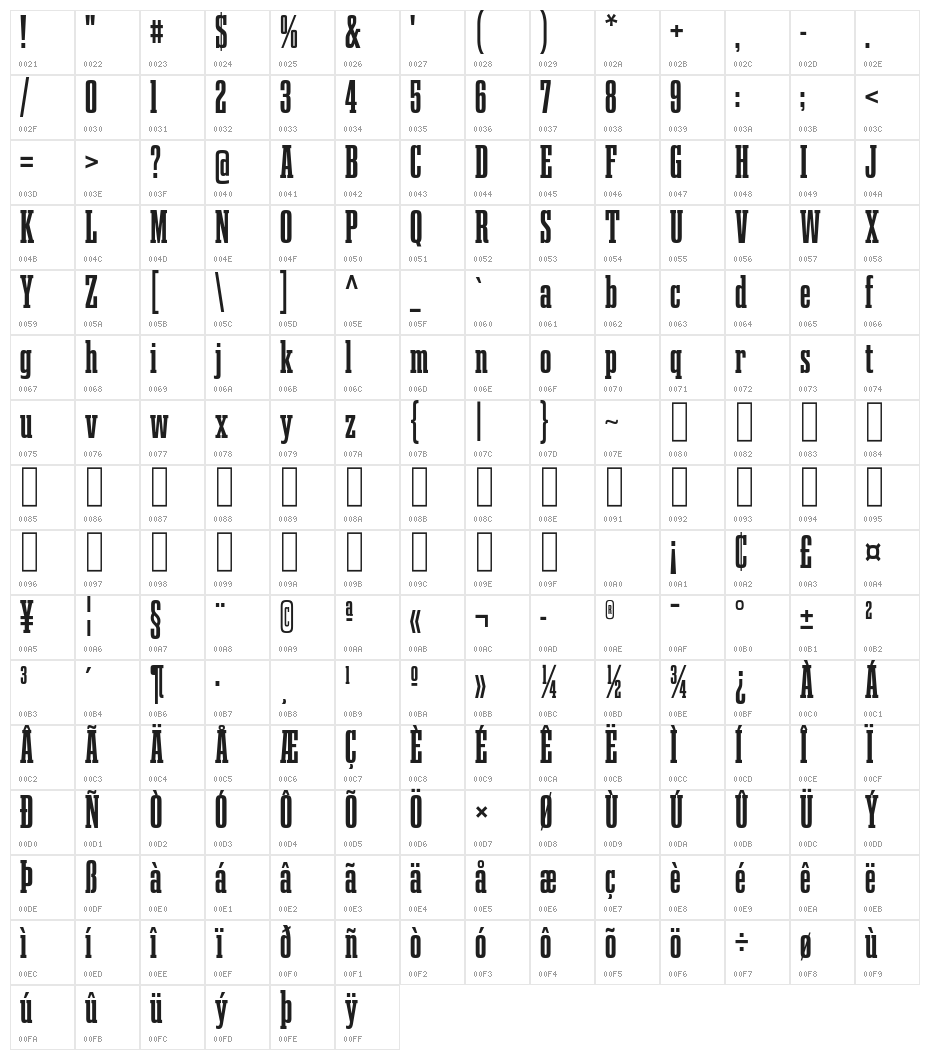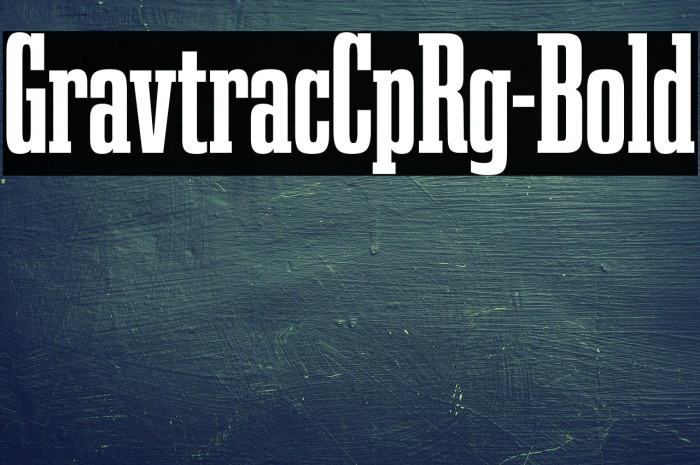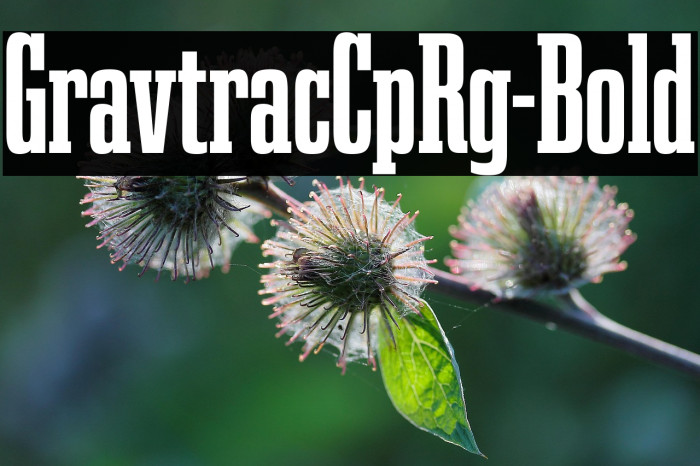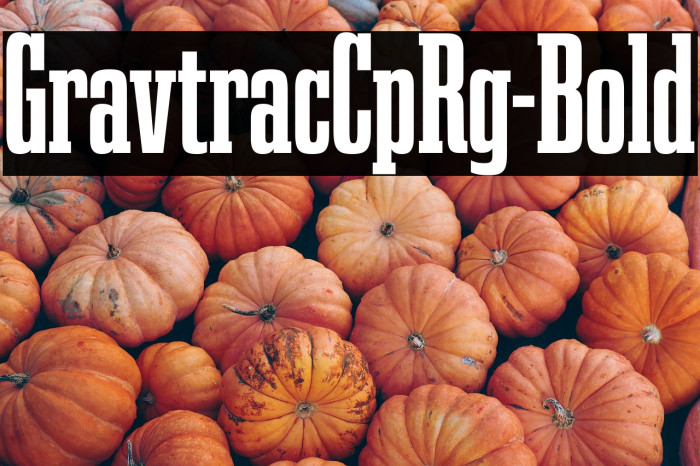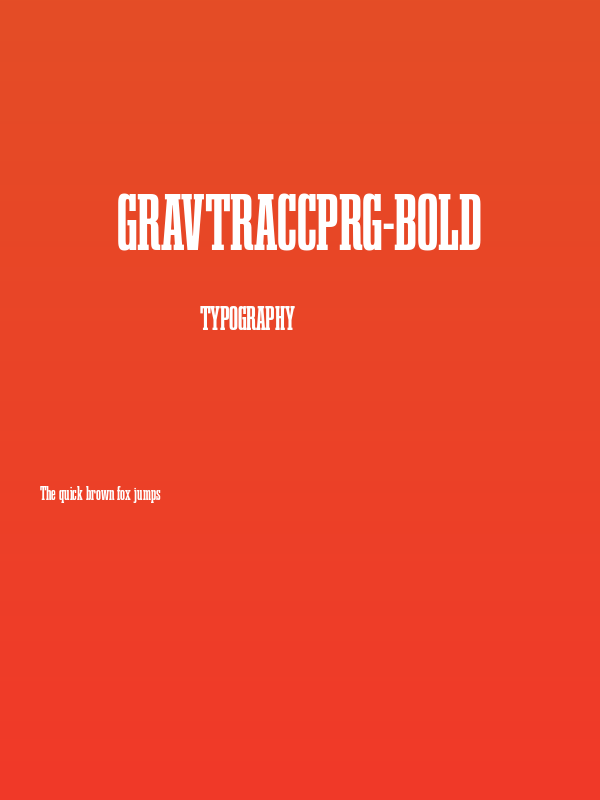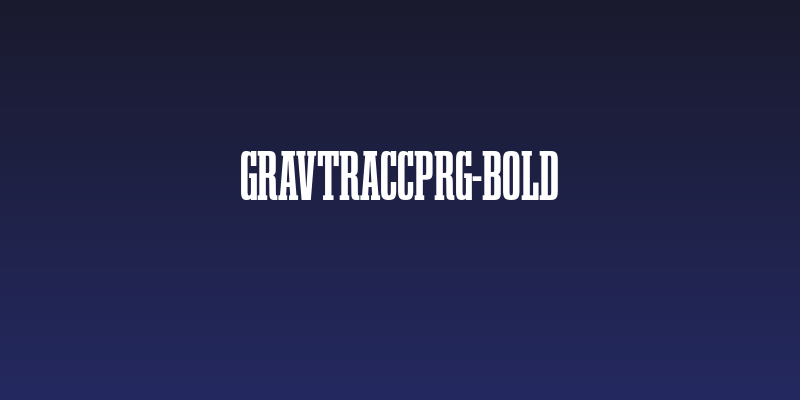
GravtracCpRg-Bold Font
GravtracCpRg-Bold Description
This font exhibits a bold and commanding presence with its thick, slab serif design. The characters are tall and narrow, giving a condensed appearance that emphasizes verticality. The serifs are prominent and block-like, adding a sense of strength and stability to the overall look. The uppercase letters are particularly striking, with their uniform height and strong lines. Lowercase letters maintain the same boldness, ensuring readability even at smaller sizes. The numbers and special characters are consistent with the font's robust style, making it suitable for impactful displays.
| Proposed Projects | Ideal for headlines, posters, and branding materials where a strong, impactful statement is needed. |